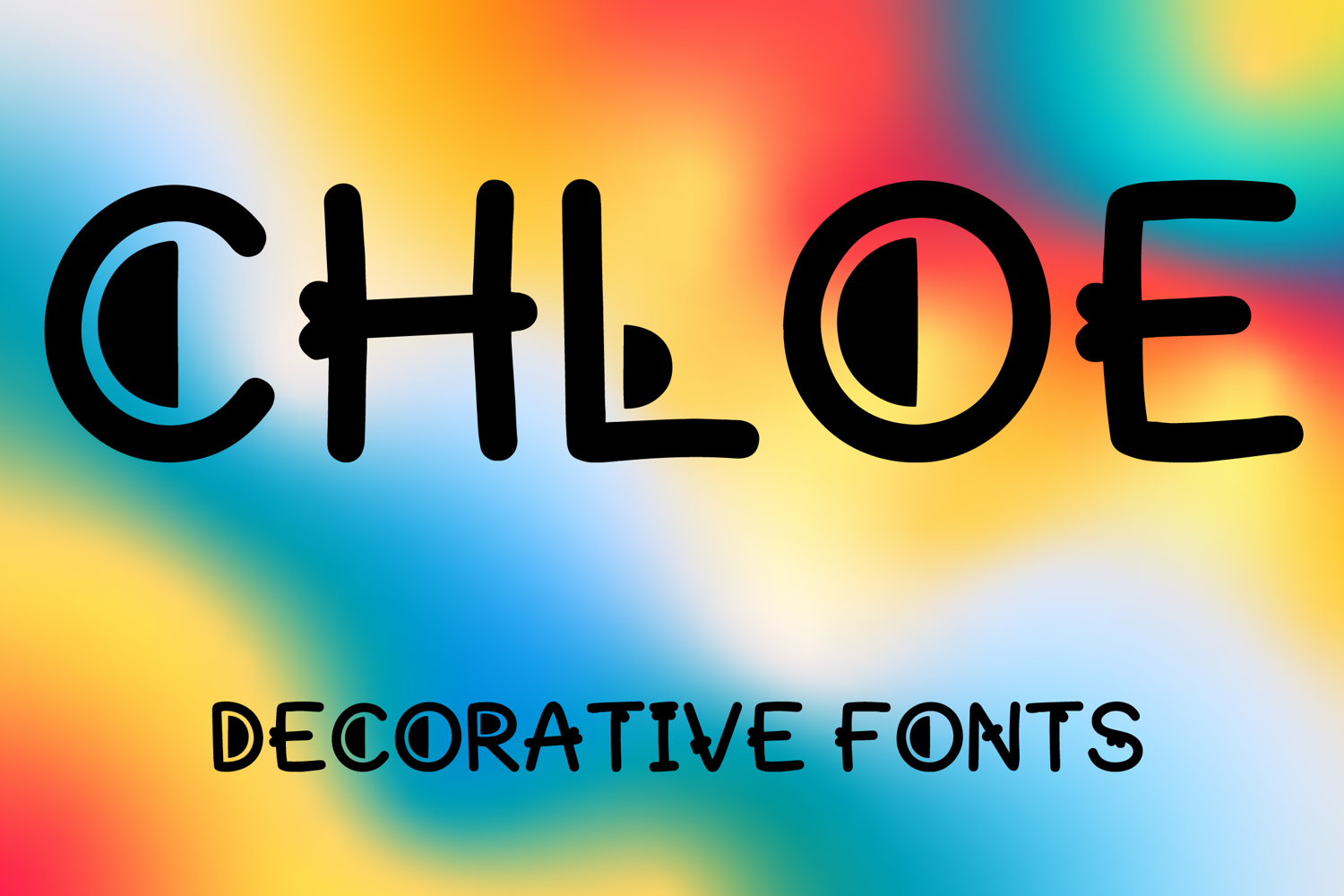
CHLOE
CHLOE is a playful decorative display font with a bold hand-drawn style and cheerful modern charm. Its uppercase letterforms feature rounded strokes, quirky geometric details, and slightly uneven lines that create a fun, friendly, and eye-catching look. Designed with uppercase letters A–Z and numbers 0–9, CHLOE is perfect for branding, posters, packaging, invitations, logos, social media graphics, and creative projects that need a bright and memorable statement.